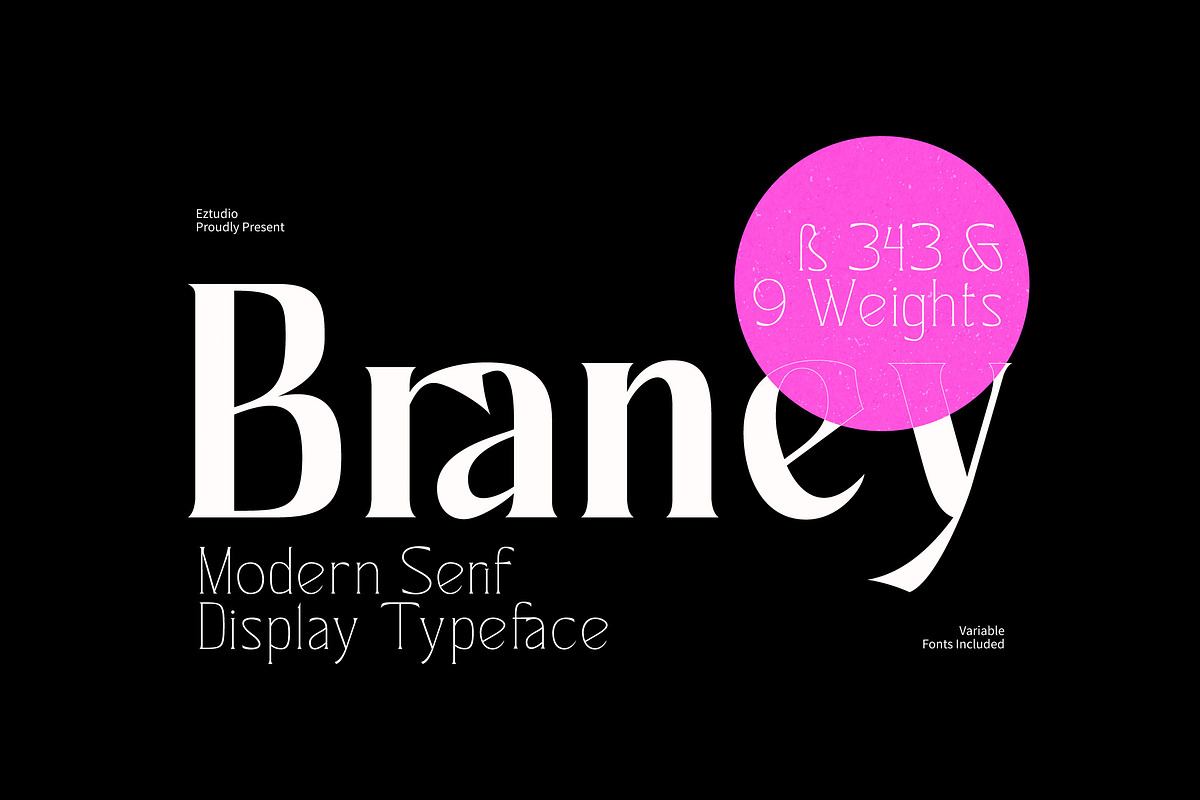
Ez-Barney - Modern Serif Display Free Download
Ez-Barney - Modern Serif Display Font Free Download
Ez-Barney - Modern Serif Display Font Free Download is a bold and stylish serif typeface designed to bring a contemporary touch to your projects. With its sharp serifs, clean lines, and striking design, this font is perfect for headlines, logos, posters, branding, and other display applications.
The modern aesthetic of Ez-Barney makes it ideal for projects that need a combination of elegance and strength. Whether you're working on a sophisticated brand, a high-impact promotional piece, or editorial layouts, this font provides both style and clarity.